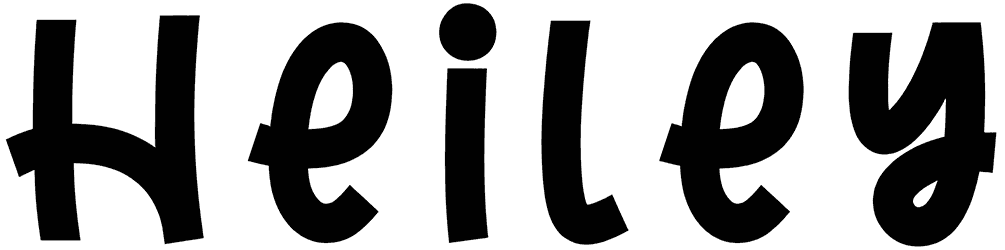
Heiley Font
There’s so much to gain through your lettering when you go with a fun font like Heiley to set the mood for your artwork. Those bold handwritten letters know how to curve so playfully in order to deliver something amusing.
Such a silly font will prove itself handy for several different projects, such as book story covers, kids’ games, kindergarten posters, potato chips packaging, and basically anywhere else you can use some cuteness in your typography.